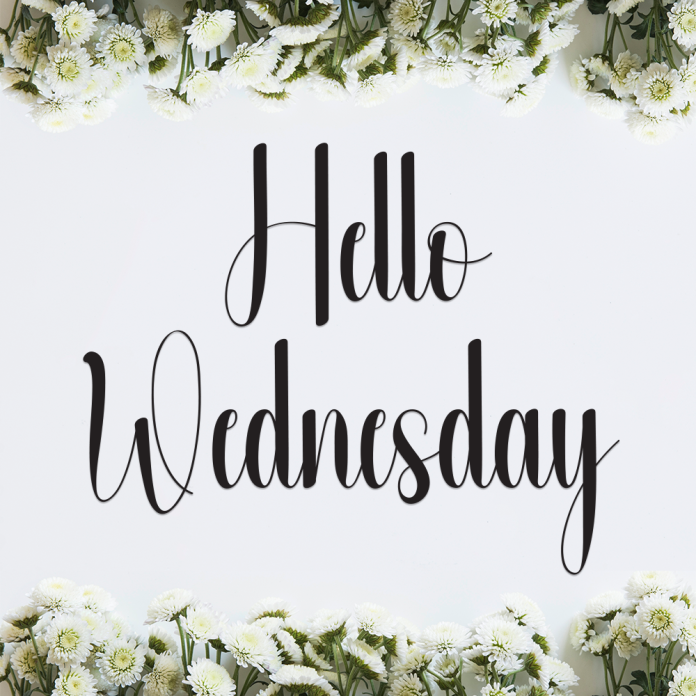
Hello Wednesday is a charming handwriting font that captures the feeling of midweek calm and creativity. With its smooth strokes and relaxed letterforms, it mimics the look of natural handwriting — perfect for projects that need a friendly and personal touch.
Great for planners, quotes, social media posts, product packaging, and handmade-themed designs.
Handwriting style with a casual, inviting feel
Smooth, slightly rounded lines
Adds warmth and personality to text
Say hello to softer, sweeter designs with the handwritten joy of Hello Wednesday!